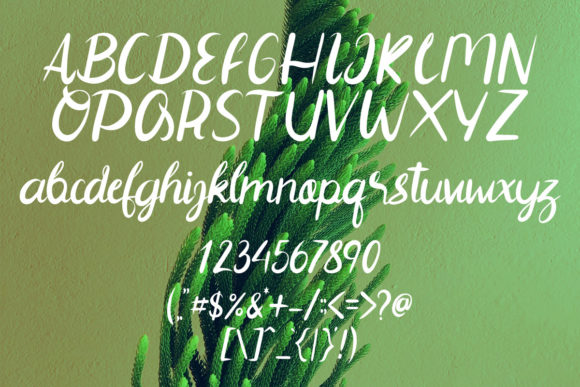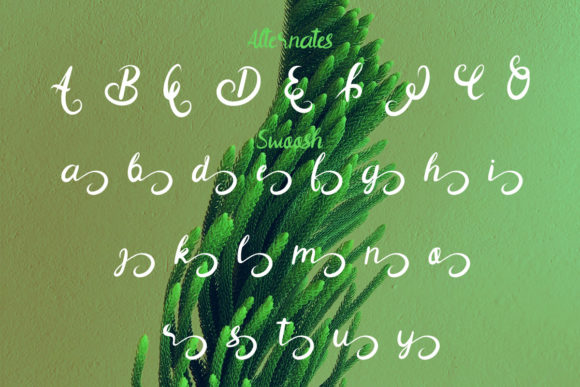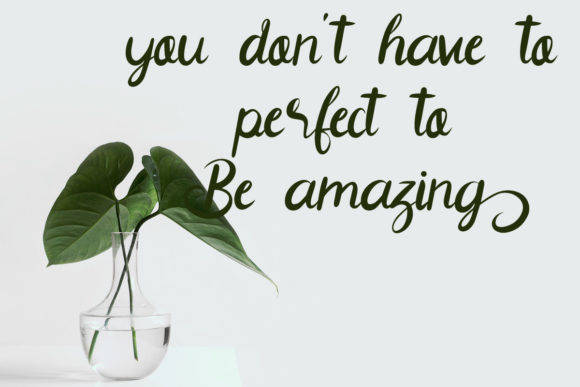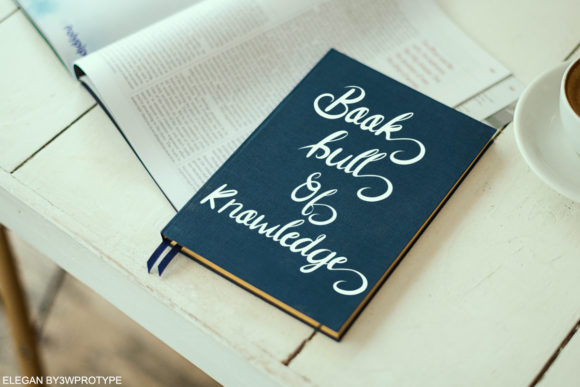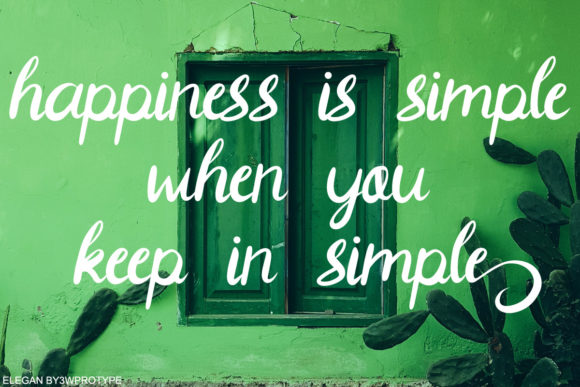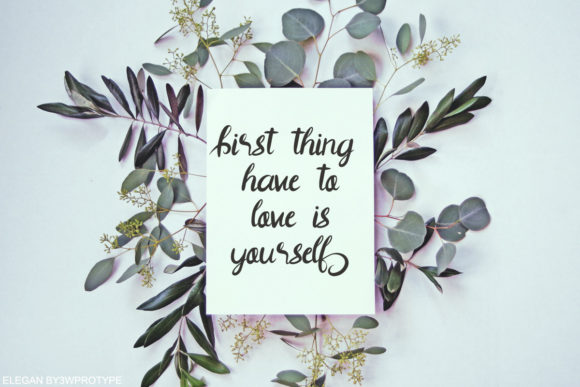
The Elegance of Elegan Font: A Designer’s Best Friend
Have you ever been in the middle of a design project, and suddenly, you’re stuck on finding the perfect font? I recall a particularly frustrating experience while working on a wedding invitation card design. My client wanted a font that exuded elegance and sophistication, but everything I tried seemed to fall flat. That’s when I discovered Elegan Font, and it changed the game for me!
What Makes Elegan Font Special?
Elegan is a beautifully crafted script font, specifically designed for branding, invitation cards, business projects, quotes, and more. What sets it apart is its PUA encoding, which allows easy access to all glyphs and swashes. This feature makes it incredibly versatile and user-friendly.
My Honest Review of Elegan Font
The Good: What I Love About Elegan Font
- ✨ Elegant and sophisticated design, perfect for high-end projects
- 💫 Highly versatile and adaptable to various design needs
- 👍 Excellent for creating unique and personalized designs
The Not-So-Good: Small Quirks and Limitations
While Elegan Font is exceptional, there are a few minor quirks to be aware of:
- ⚠️ Some users might find the font a bit too delicate for certain design applications
- 🤔 Limited availability of bold or heavy weights, which might not be suitable for all projects
Elegan Font was created with the intention of providing a versatile and elegant script font for designers. Inspired by classic calligraphy and modern typography, Elegan Font aims to bring a touch of sophistication to any design project.
Q: What is PUA encoding, and how does it benefit font users?
PUA (Private Use Area) encoding allows font creators to include additional glyphs and characters that aren’t part of the standard Unicode range. This means that users can access a wider range of characters, swashes, and glyphs, making the font more versatile and adaptable to various design needs.
Q: Is Elegan Font suitable for body text or long-form content?
While Elegan Font is beautiful and elegant, it’s primarily designed for display purposes or short-form content. For body text or long-form content, you may want to consider a more legible font.